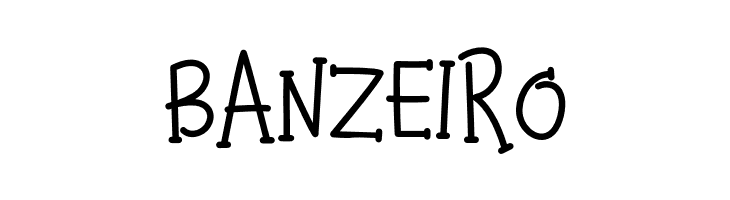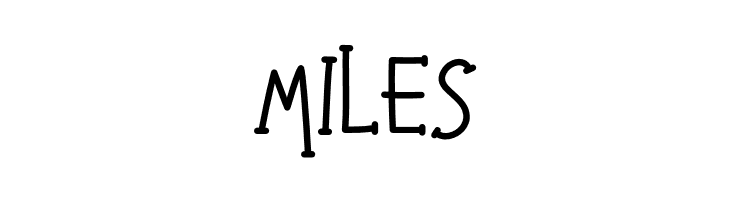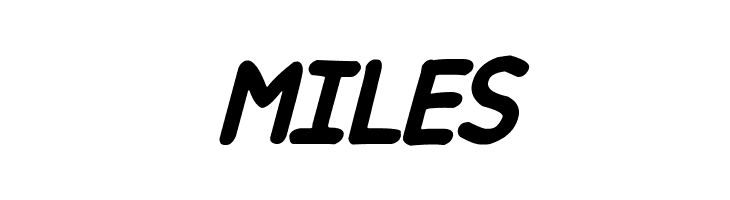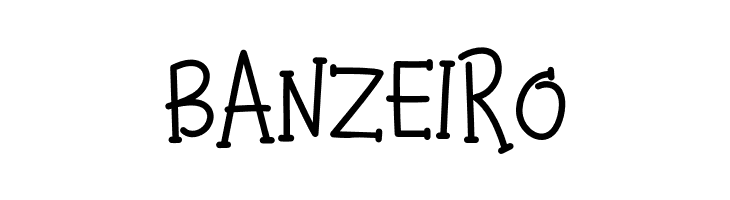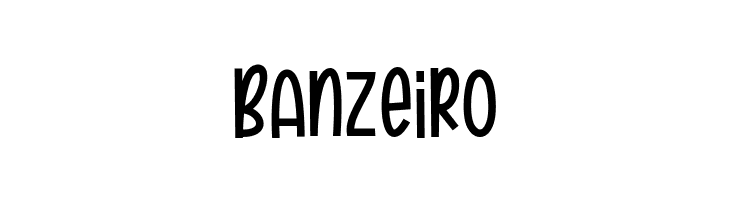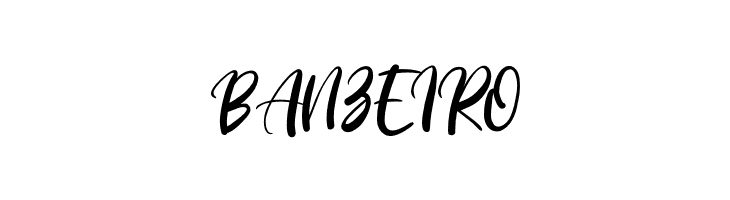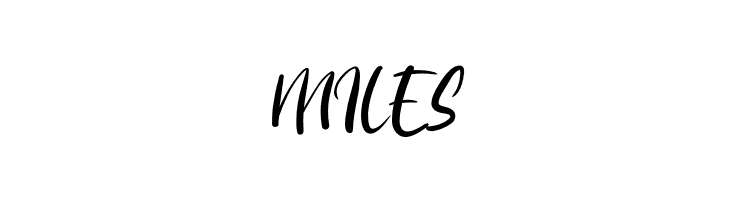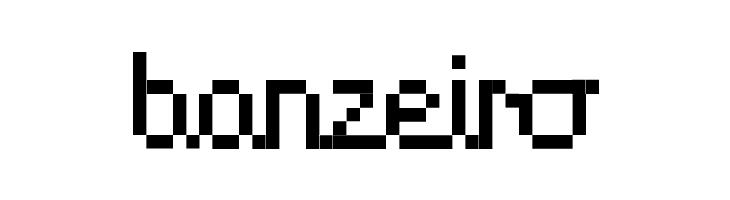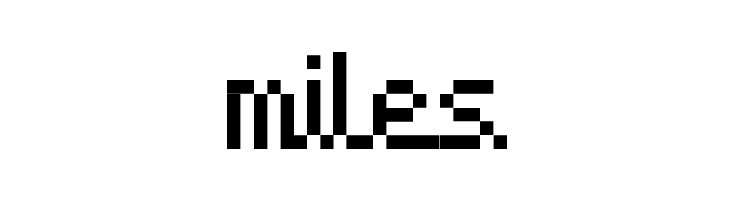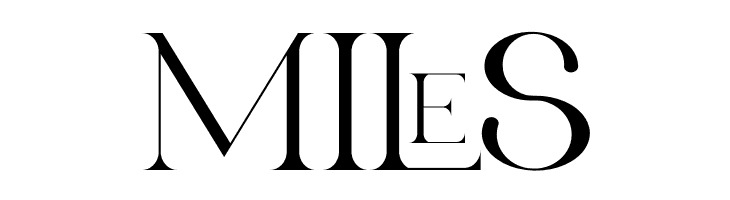
A bold, grid-based font with a pixelated, retro digital style.
A bold, geometric font with a futuristic, angular design.
A futuristic, geometric font with angular edges and consistent thickness.
A bold, flowing script font with elegant, dynamic letterforms.
A futuristic, geometric font with bold, angular letterforms.
An elegant, flowing script font with high contrast and artistic flair.
A modern, narrow font with elongated characters and a sleek design.
A playful, bold, and rounded font with a whimsical touch.
An elegant cursive script font with interconnected letters and ornate flourishes.
An elegant serif font with high contrast and artistic flourishes.
A bold, dripping font with a grunge and horror aesthetic.
A bold, modern font with rounded strokes and a playful aesthetic.
A fluid, cursive script font with a natural handwriting style.
A lively and elegant script font with fluid, cursive strokes.
A playful, handwritten font with irregular strokes and a casual style.
A bold, playful font with a hand-drawn, artistic style.
A dynamic and expressive handwritten font with fluid, cursive strokes.
A playful, hand-drawn font with rounded, bold letterforms.
Whimsical cartoon character font with playful, expressive figures.
A playful, handwritten italic font with bold, rounded strokes.
A playful, hand-drawn font with a whimsical and informal style.
A modern serif font with clean lines and balanced proportions.
A bold, classic typewriter-style font with modern, clean lines.
A bold and italic serif font with a dynamic and elegant appearance.
An elegant italic font with smooth curves and a modern twist.